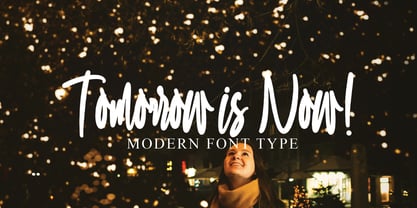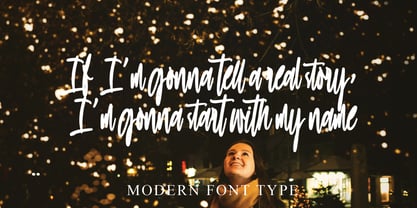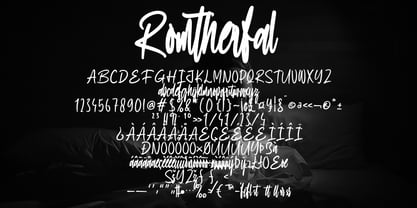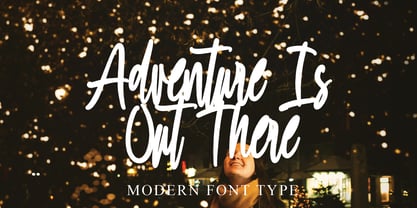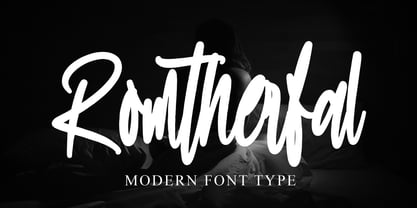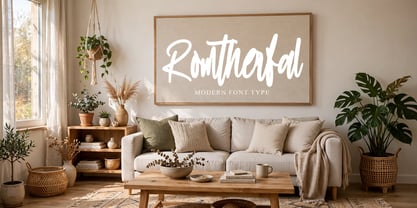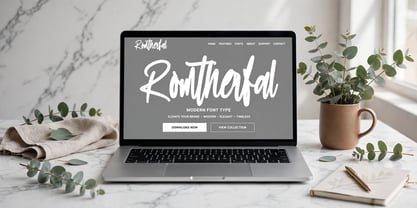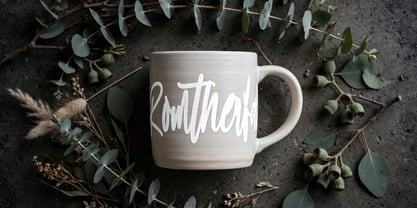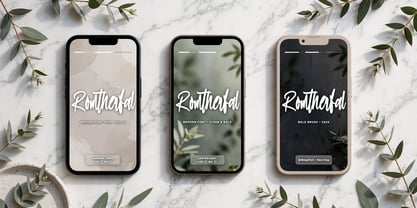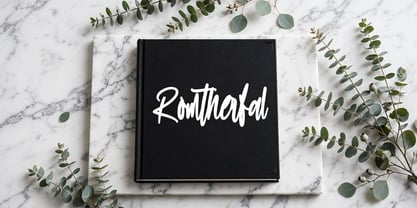
Romtherfal
by Ayska
The Romtherfal Font Family was designed by Dhoni Trihatmoko and published by Ayska. Romtherfal contains 1 styles. More about this family
Surrender yourself to the exquisite universe of Romtherfal, an extraordinary font that seamlessly amalgamates contemporary sophistication with the timeless elegance of calligraphy. Romtherfal exudes an air of urbane finesse, distinguishing itself as an essential visual companion to every creative pursuit. Let Romtherfal invigorate your blog posts, infusing them with a gripping readability, lend distinctiveness to your digital planner layouts, revolutionize party invites into irresistible calls to adventure, or sprinkle a touch of vibrancy into your handmade greeting cards. Discover the boundless refinement and dreamlike hues of Romtherfal, and watch as it infuses new vitality into your meticulously curated photo collections or personalized décor accoutrements. Romtherfal showcases the extraordinary ability to morph everyday digital designs into visually arresting narratives. Supercharge your creative endeavors with Romtherfal. Marvel as it aids your bare ideas in transforming into mesmerizing works of art. Embrace the compelling magnetism of Romtherfal's design ingenuity; turning your creative concepts into astonishing, resplendent works of art.
Designers: Dhoni Trihatmoko
Foundry: Ayska